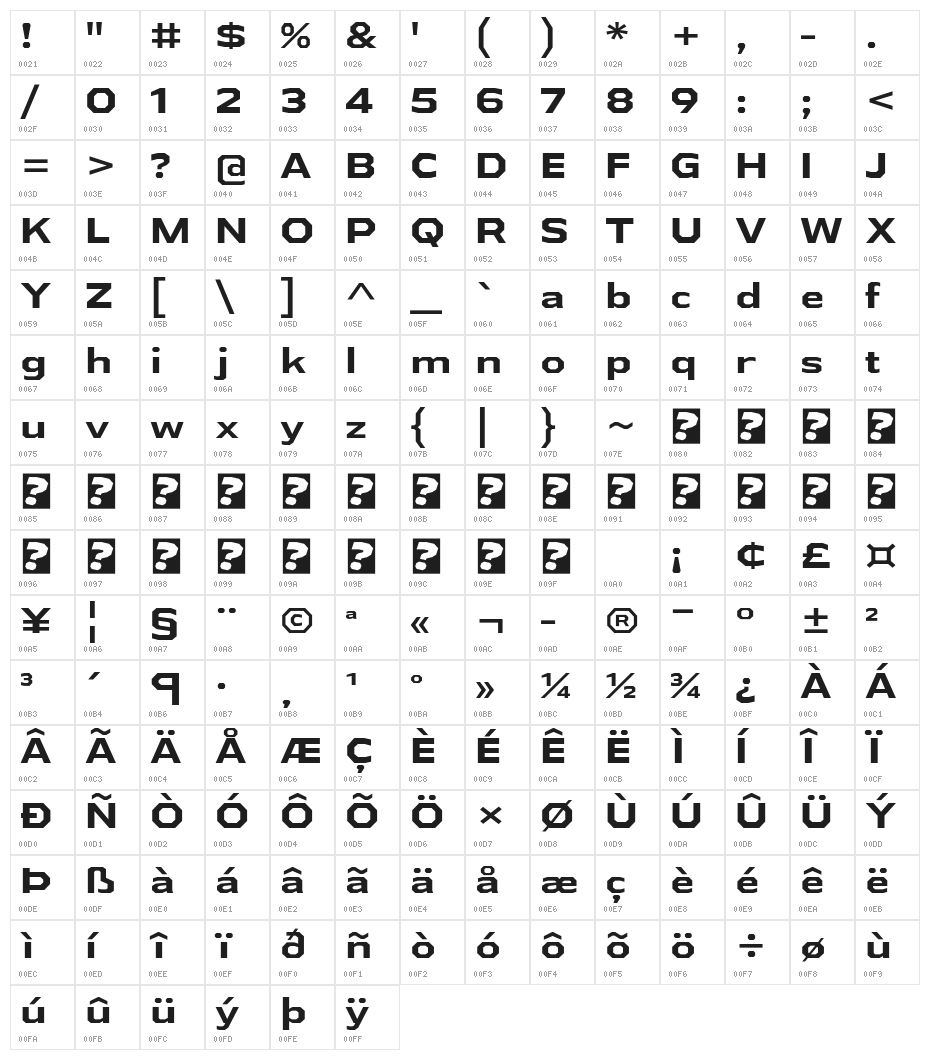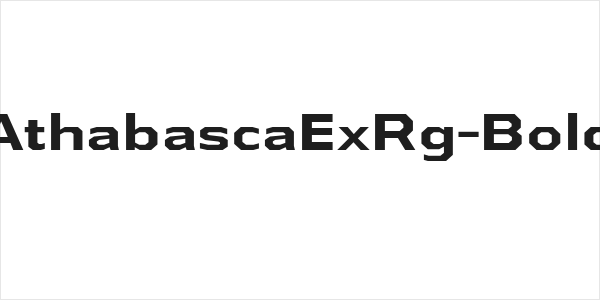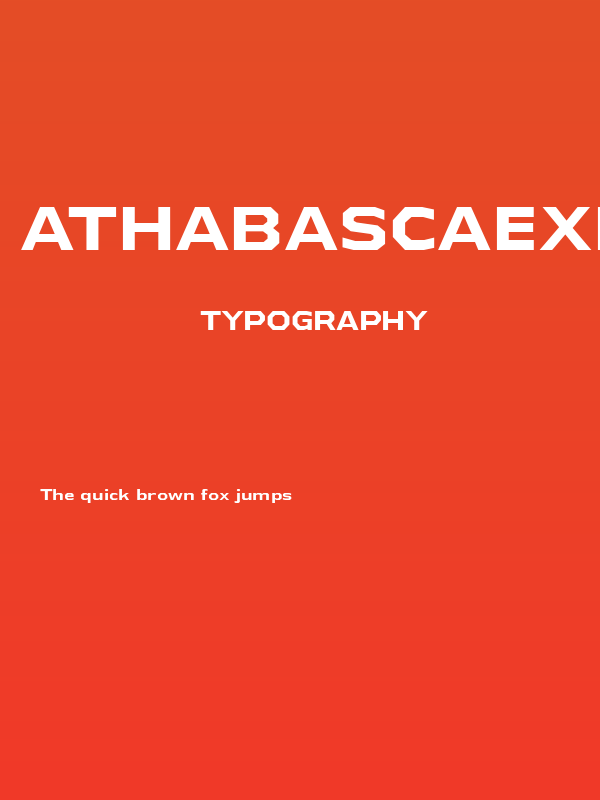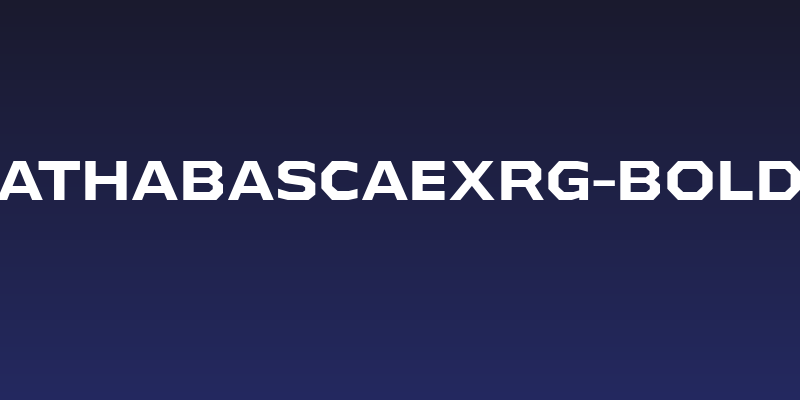
AthabascaExRg-Bold Font
AthabascaExRg-Bold Description
This font features a bold and assertive style with strong geometric shapes and a modern aesthetic. The uppercase letters are particularly striking, with a uniform height and width that convey a sense of stability and strength. The lowercase letters maintain a consistent style, complementing the uppercase with slightly rounded edges that soften the overall appearance. Numbers are clear and legible, designed with the same boldness as the letters, making them suitable for impactful displays. Special characters are distinct and well-defined, ensuring clarity in various contexts. The font's overall design is clean and contemporary, making it versatile for a range of applications.
Use CaseHeadlines, Logos, Branding
Proposed ProjectsIdeal for branding, advertising, headlines, and digital media where a strong visual impact is desired.